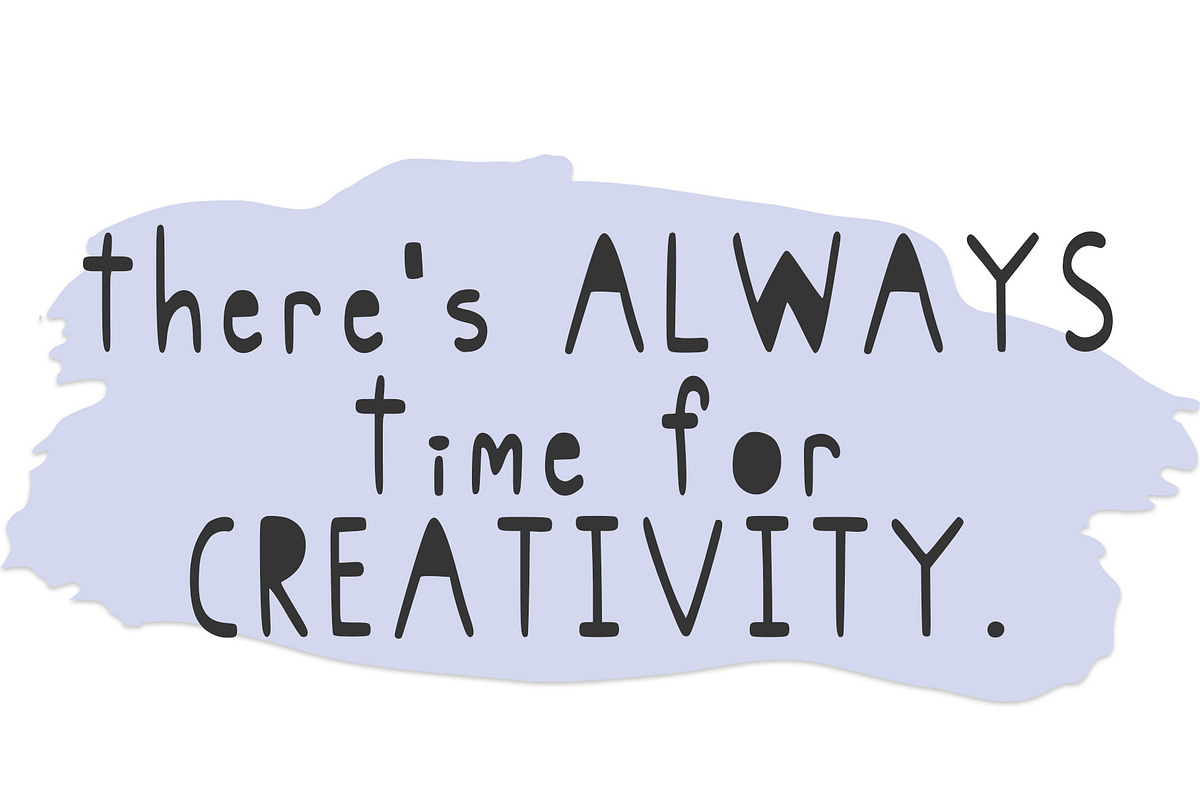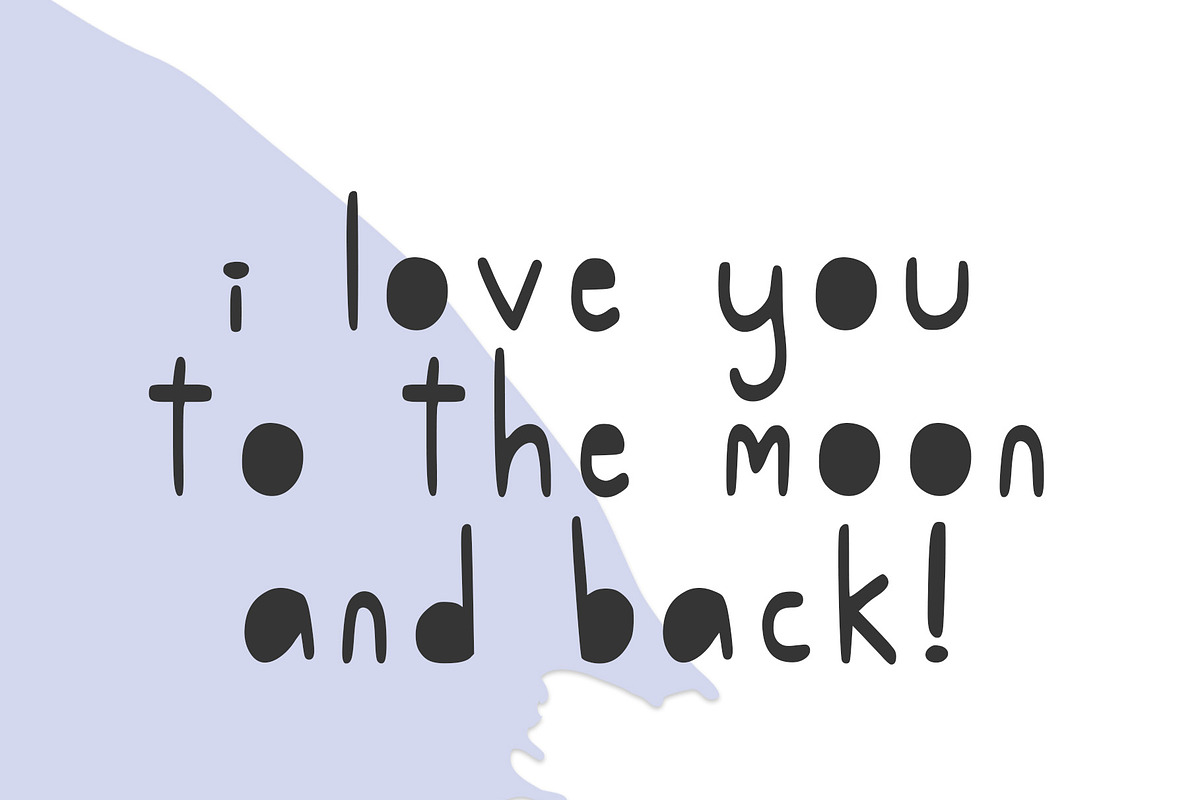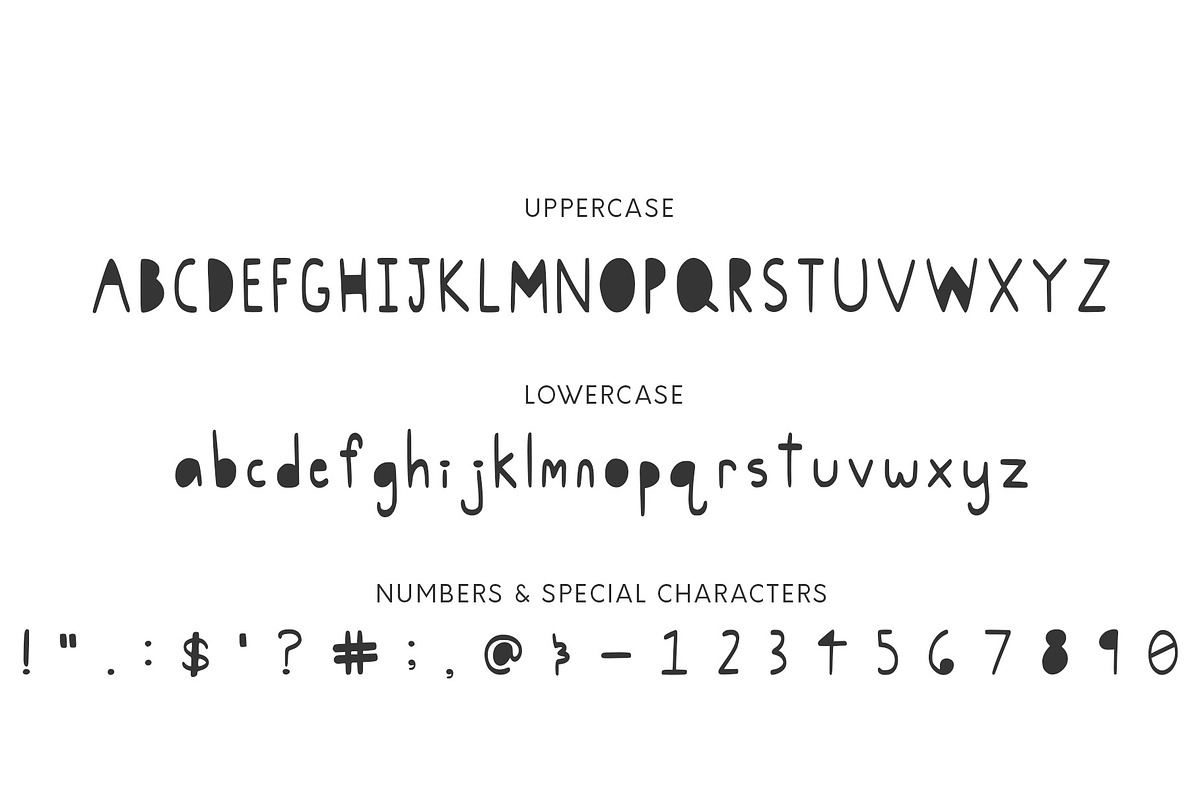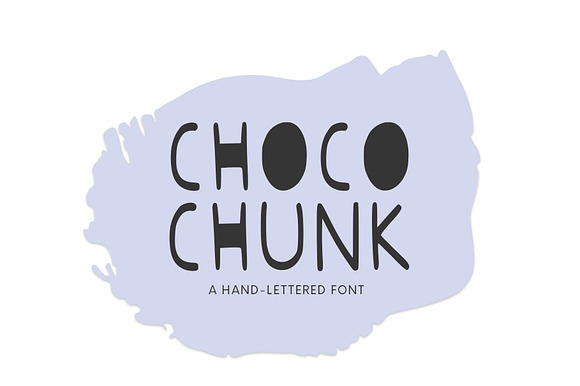
Choco Chunk, A Hand-Lettered Font
Introducing Choco Chunk! A bulky and fun typeface that's perfect for all sorts of graphic design projects. Including web design, branding, stationery design, logos, banners and more!